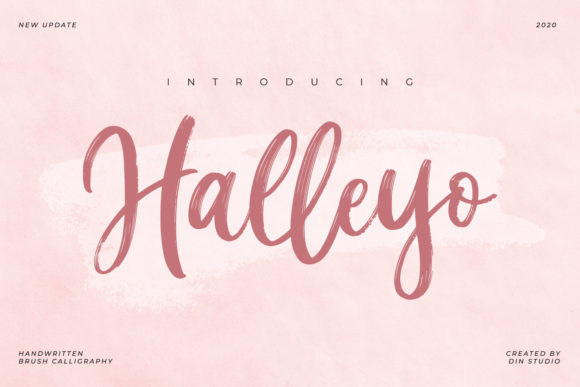
Venture into the world of Halleyo, a captivating script font, crafted with love by Din Studio. Halleyo is not merely a font; it's an art form, a stroke of genius that will transform your designs into masterpieces. Its elegant curves and sweet, innocent charm will make your words dance off the page.
Unleash your inner artist and let Halleyo's incredibly versatile style ignite your creativity. Whether you're designing t-shirts, invitations, posters, or social media graphics, Halleyo will effortlessly elevate your work to new heights. With its ability to adapt seamlessly to any project, Halleyo is your perfect partner in crime.
Picture this: you're working on a t-shirt design, aiming to capture the essence of summer. With Halleyo's graceful strokes, you paint words that evoke the warmth of the sun-kissed sand, the gentle caress of the ocean breeze, and the vibrant hues of a sunset. Your design speaks volumes, transporting your audience to a realm of serenity and bliss.
Or perhaps you're creating an invitation for a special occasion. Halleyo's exquisite charm adds a touch of elegance and sophistication, setting the tone for an unforgettable event. As your guests receive the invitation, they'll be captivated by its beauty, eager to RSVP and join in the celebration.
Halleyo is more than just a font; it's a storytelling tool, a means to express emotions and connect with your audience. Its remarkable versatility empowers you to craft designs that resonate with your target market, leaving a lasting impression.
Don't settle for ordinary fonts that blend into the background. Embrace the power of Halleyo and let your designs shine. Its ability to transform words into works of art will leave your audience spellbound, yearning for more.
So, dive into the world of Halleyo today and embark on a creative journey like never before. Let your imagination soar, knowing that you have the perfect companion by your side. Halleyo will elevate your designs, captivate your audience, and leave them breathless.